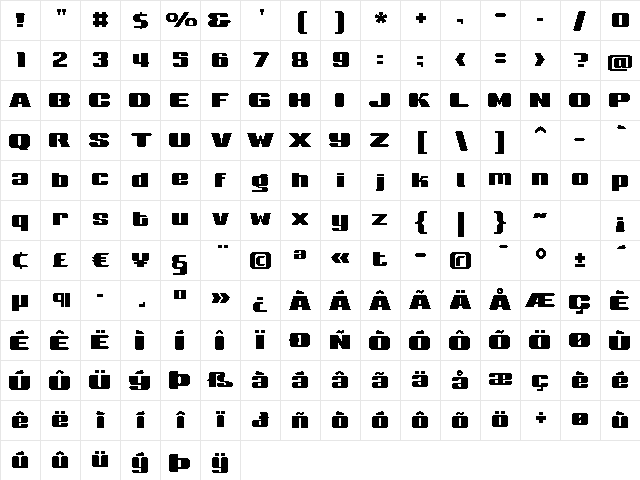
Complete Sneakers Pro Wd Obl glyph index. Displaying only characters natively supported by Sneakers Pro Wd Obl font.
Sneakers Pro is a composed and adaptable typeface that performs quietly and consistently across a wide range of design contexts.
Who designed the Sneakers Pro Wd Obl font?